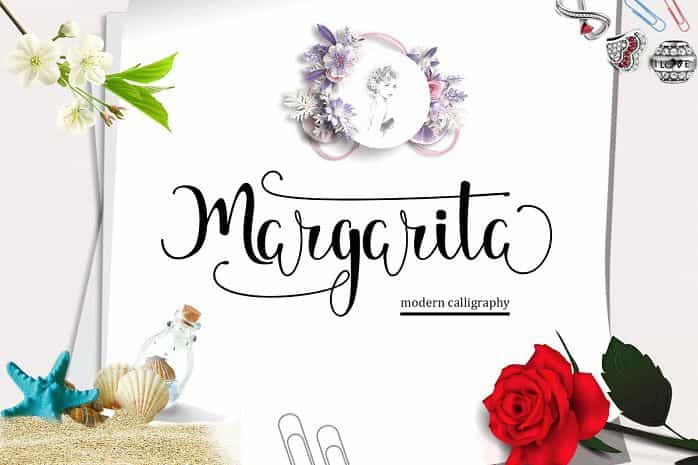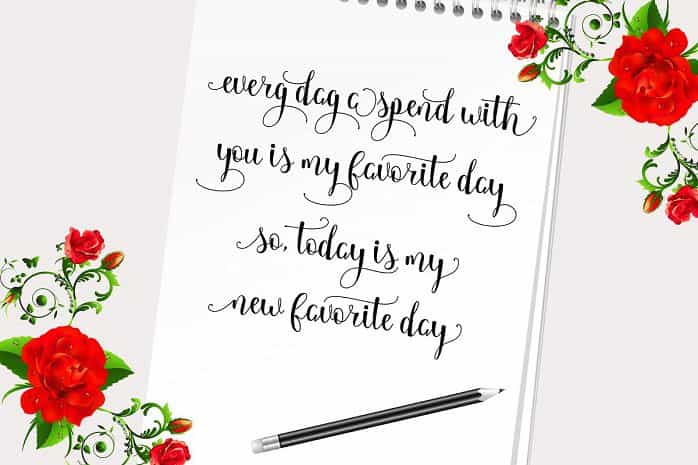
Discover Margarita Script Font, part of the Calligraphy collection—a versatile and unique font perfect for adding a personal touch to your projects. Download it for free and enjoy crafting designs with style, from invitations to social media posts. This font is available exclusively for personal use, giving you the freedom to create without limits. Unlock your creativity with Margarita Script Font today!
Introducing Margarita Font. It is created and posted by rtcreative86. Margarita is a plain font that has Stylistic standards and Alternatives. and it contains both the uppercase and lowercase letters, numbers and punctuation. Margarita is a purely handwritten work which has natural characteristics. It is the best for invitations, signatures, blogs, social media and business cards.